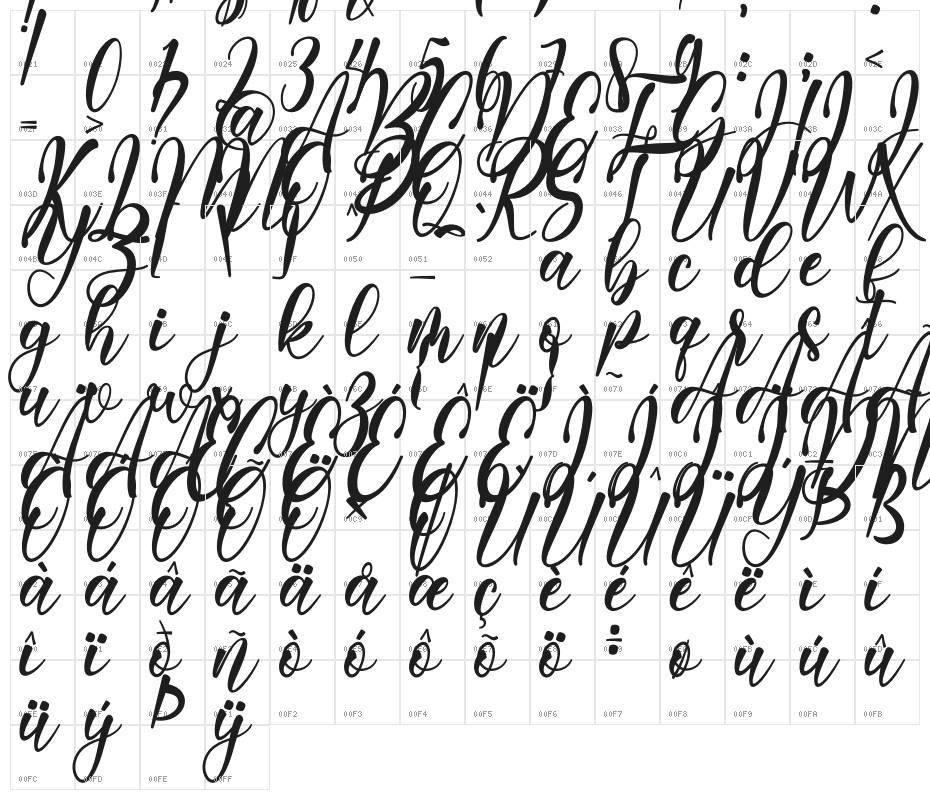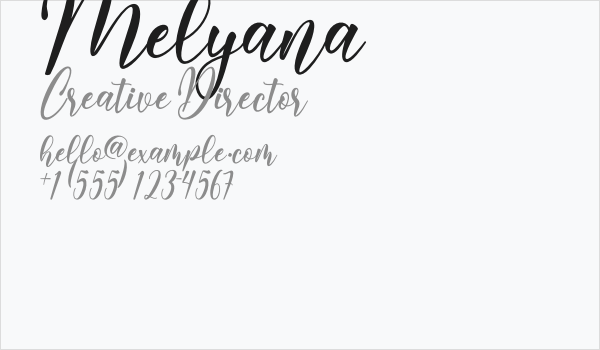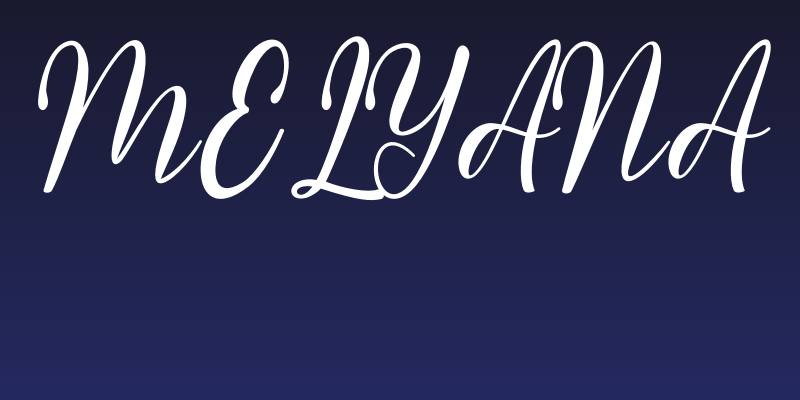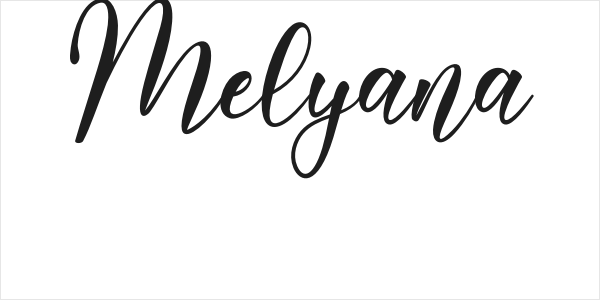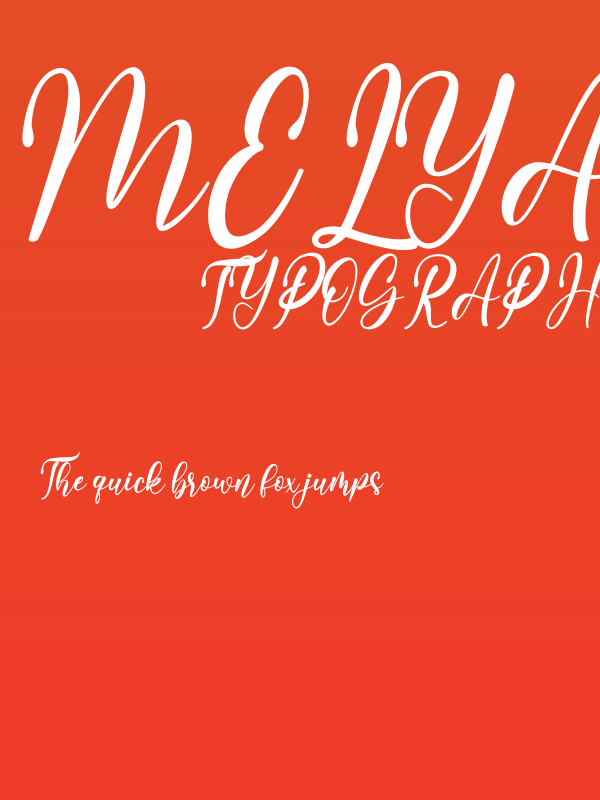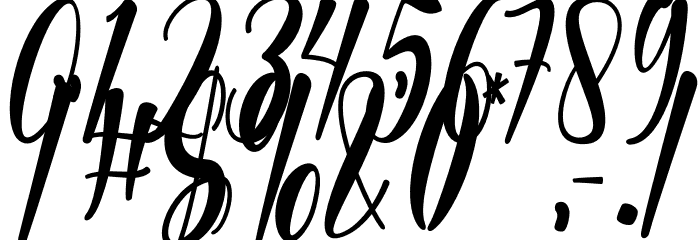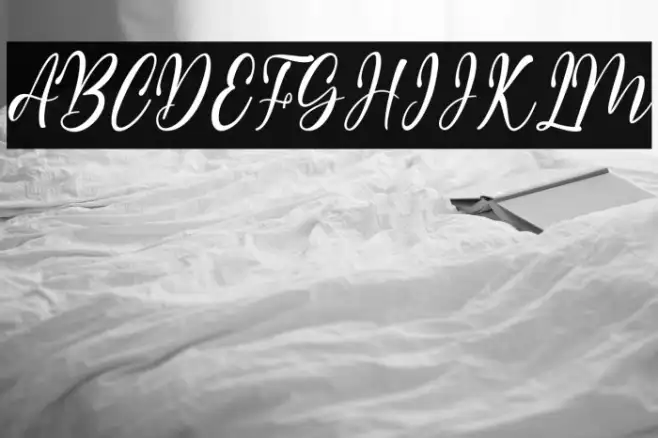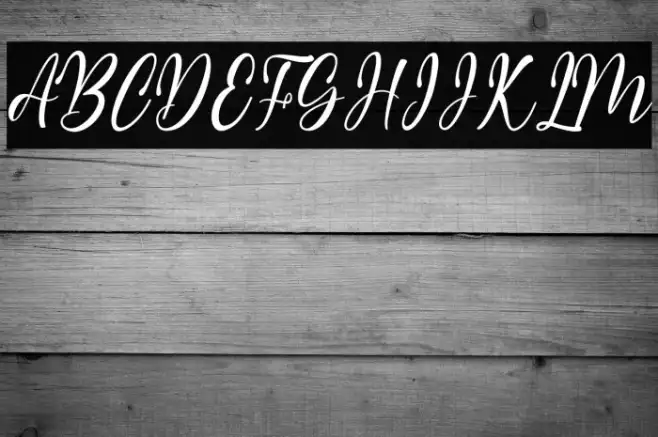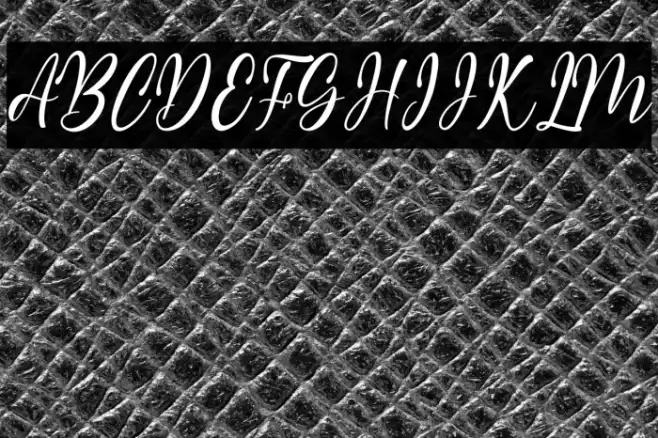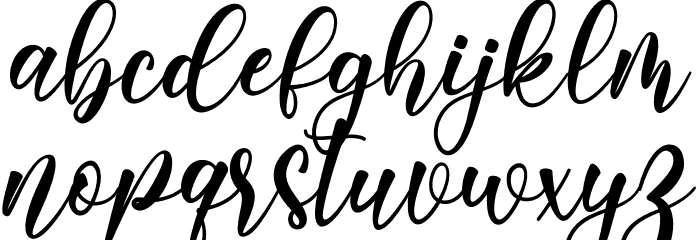
Melyana Font
Melyana Description
This font features an elegant and flowing script style, characterized by its smooth, cursive letterforms that exude sophistication and grace. The uppercase letters are slightly more ornate, with sweeping curves and flourishes, while the lowercase letters maintain a consistent, flowing rhythm. The numerals and special characters blend seamlessly with the alphabet, maintaining the same fluidity and style. This font is perfect for projects that require a touch of elegance and class, such as wedding invitations, branding, and high-end product packaging.
| Overall Style | Elegant, Sophisticated |
| Proposed Projects | Ideal for wedding invitations, luxury branding, and elegant product packaging. |